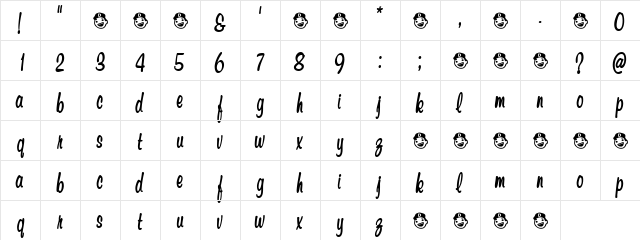
Blulite Regular
Design Context for Blulite Typeface
Blulite is a composed and adaptable typeface that performs quietly and consistently across a wide range of design contexts.